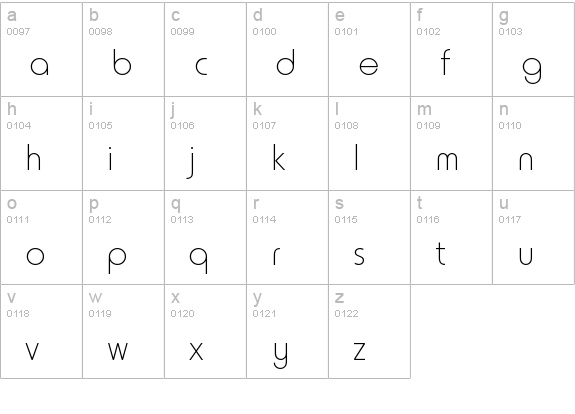
HoratioDLig Font Details
HoratioDLig is a stunning and versatile font that exudes elegance and sophistication. With its delicate ligatures and graceful curves, this font is perfect for adding a touch of class to any design project. Whether you're creating wedding invitations, branding materials, or social media graphics, HoratioDLig is sure to make a lasting impression. What's even better is that HoratioDLig is completely free to download at FontsMarket.com. That's right, you can enhance your creative projects with this beautiful font without spending a dime. Take advantage of this amazing offer and elevate your designs with the timeless charm of HoratioDLig. Download it now and let your creativity soar!